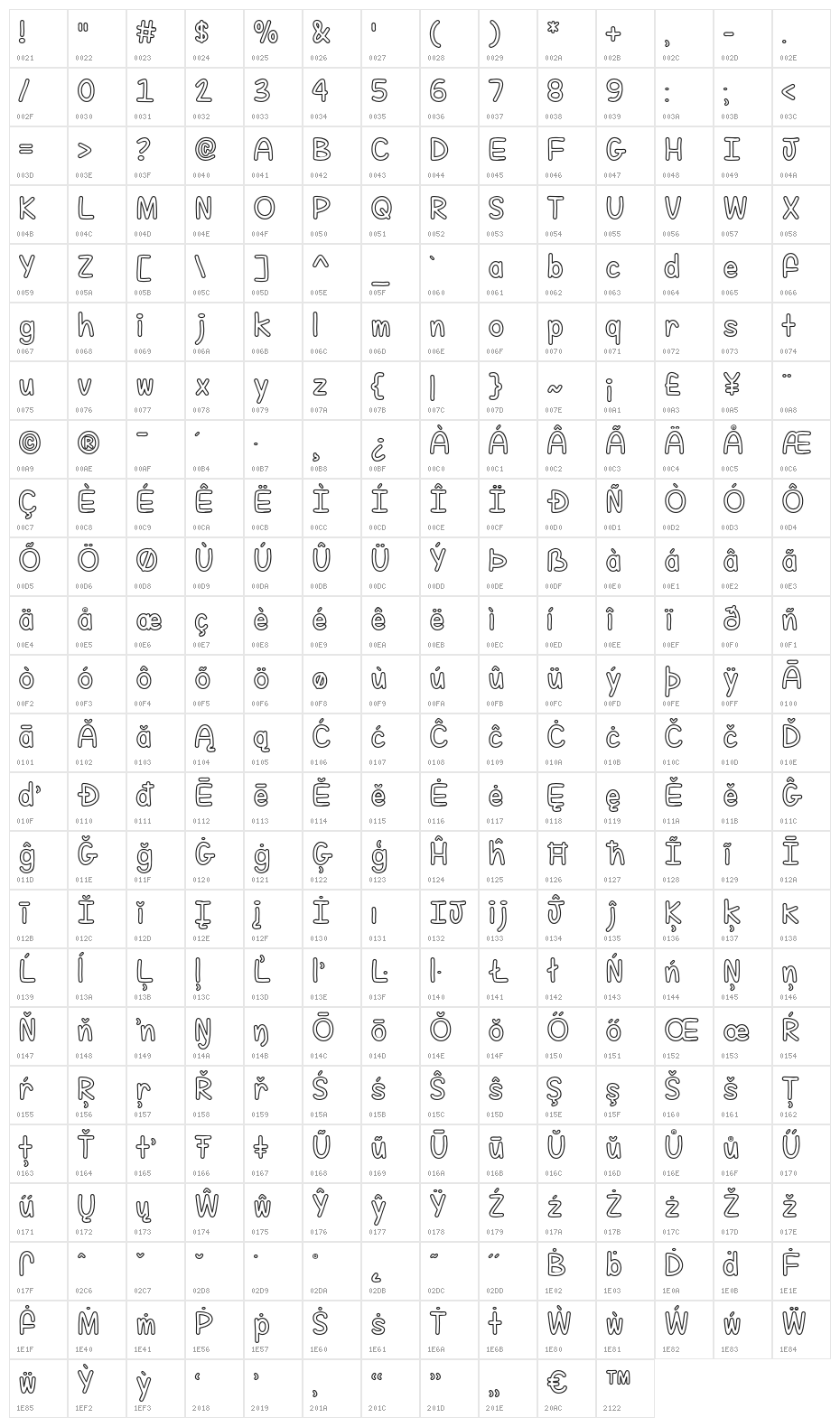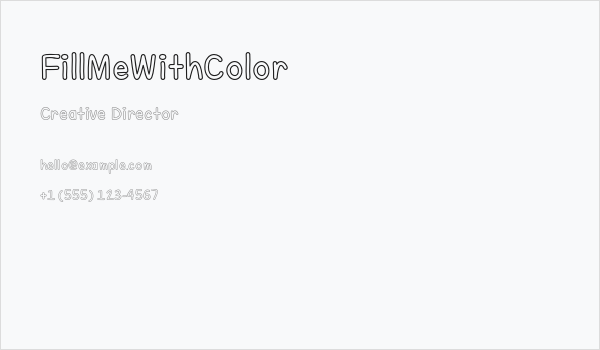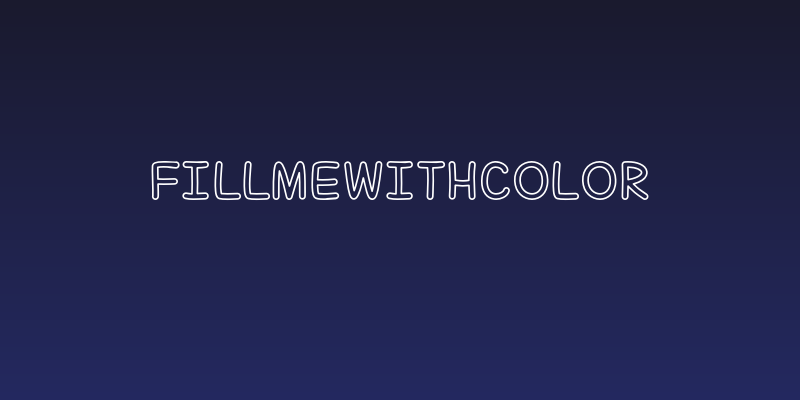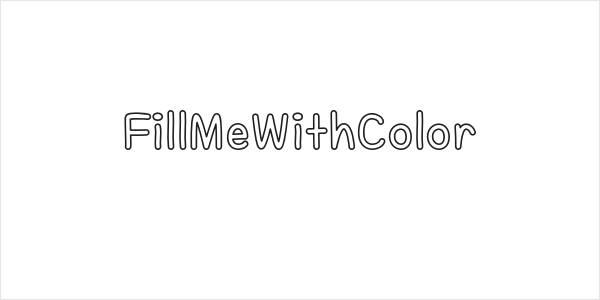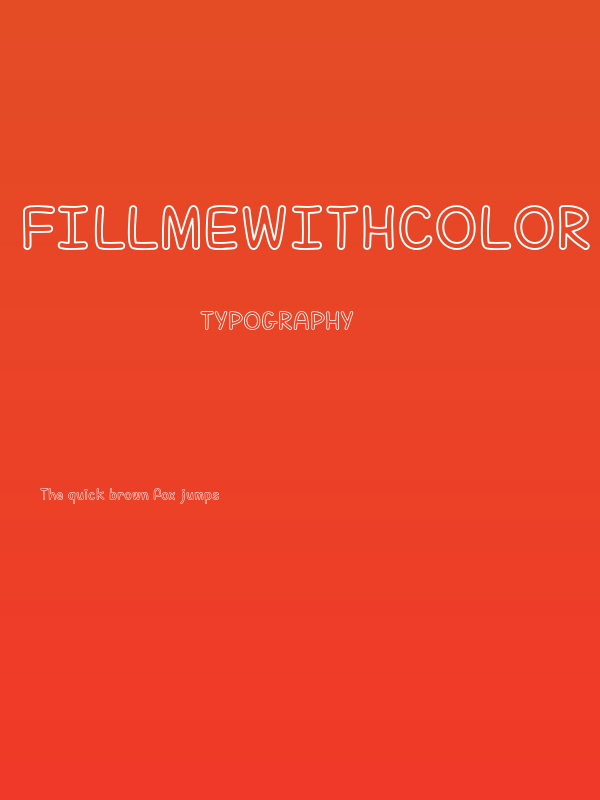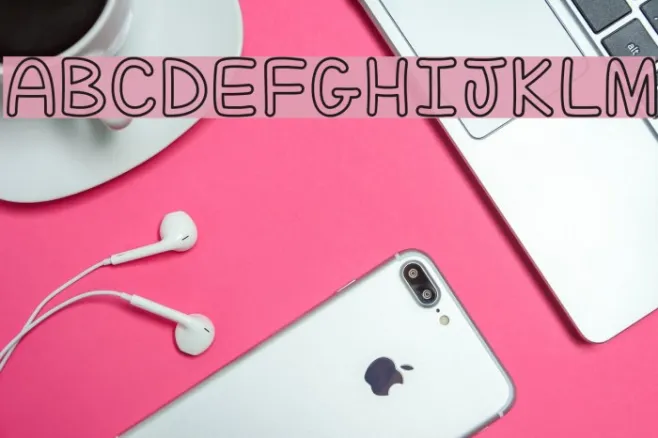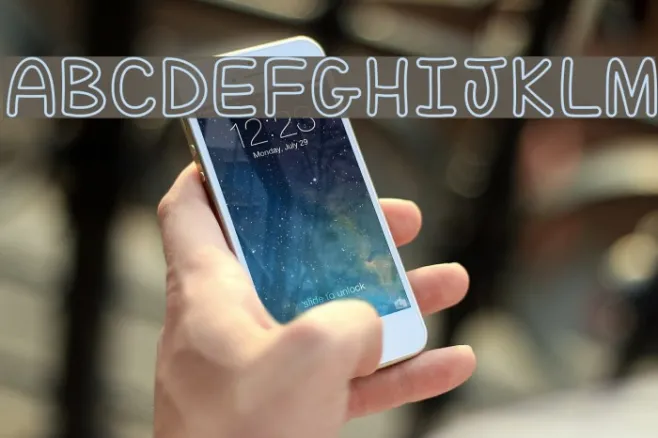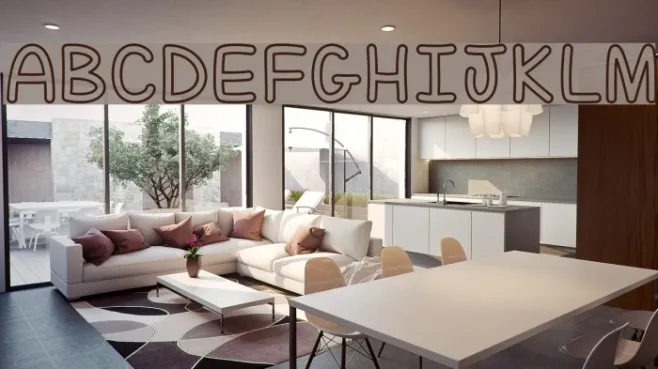
FillMeWithColor Font
FillMeWithColor Description
This playful and inviting font features rounded, bubble-like characters with a consistent outline that gives it a cartoonish and friendly appearance. The letters are evenly spaced, with a uniform thickness that maintains readability while adding a touch of whimsy. The font's design is simple yet effective, making it suitable for a variety of creative projects. Its bold outlines make it stand out, while the rounded edges soften its overall look, creating a balance between fun and clarity. This font is perfect for projects that require a lighthearted and approachable feel, such as children's books, playful branding, or casual invitations.
| Overall Style | Playful, Cartoonish |
| Proposed Projects | Ideal for children's books, playful branding, casual invitations, and creative posters. |